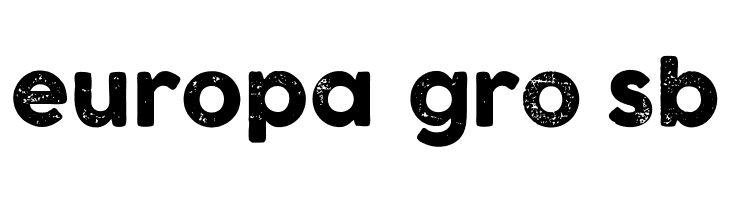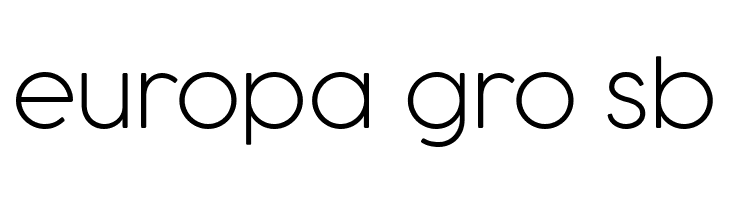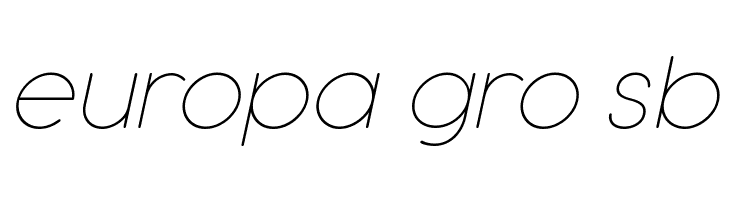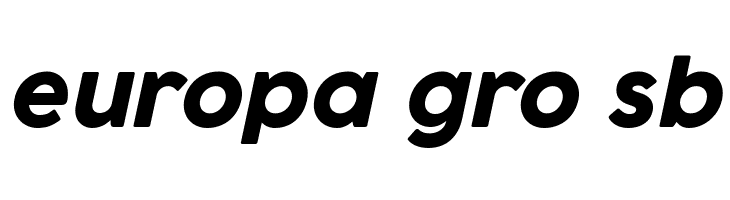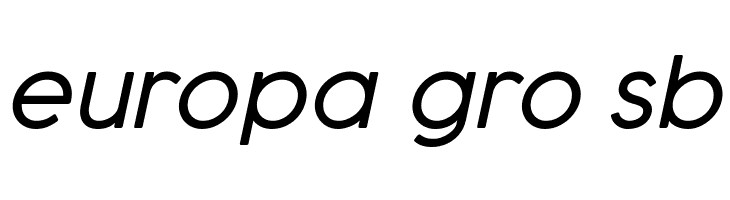
A bold, modern italic font with geometric shapes and clean lines.
A bold, distressed letterpress-style font with a vintage, rugged look.
A modern, geometric sans-serif font with a clean and minimalistic design.
A modern, light, and italic sans-serif font with clean lines and elegant curves.
A bold, outlined font with a modern and retro flair, offering high legibility and impact.
A clean, modern sans-serif font with a semi-light weight and uniform stroke width.
A modern, semi-light italic sans-serif font with a sleek and dynamic style.
A sleek, modern font with thin, clean lines and a minimalist aesthetic.
A modern, thin, italicized font with a sleek and elegant design.
A modern, ultra-light sans-serif font with a sleek and minimalist design.